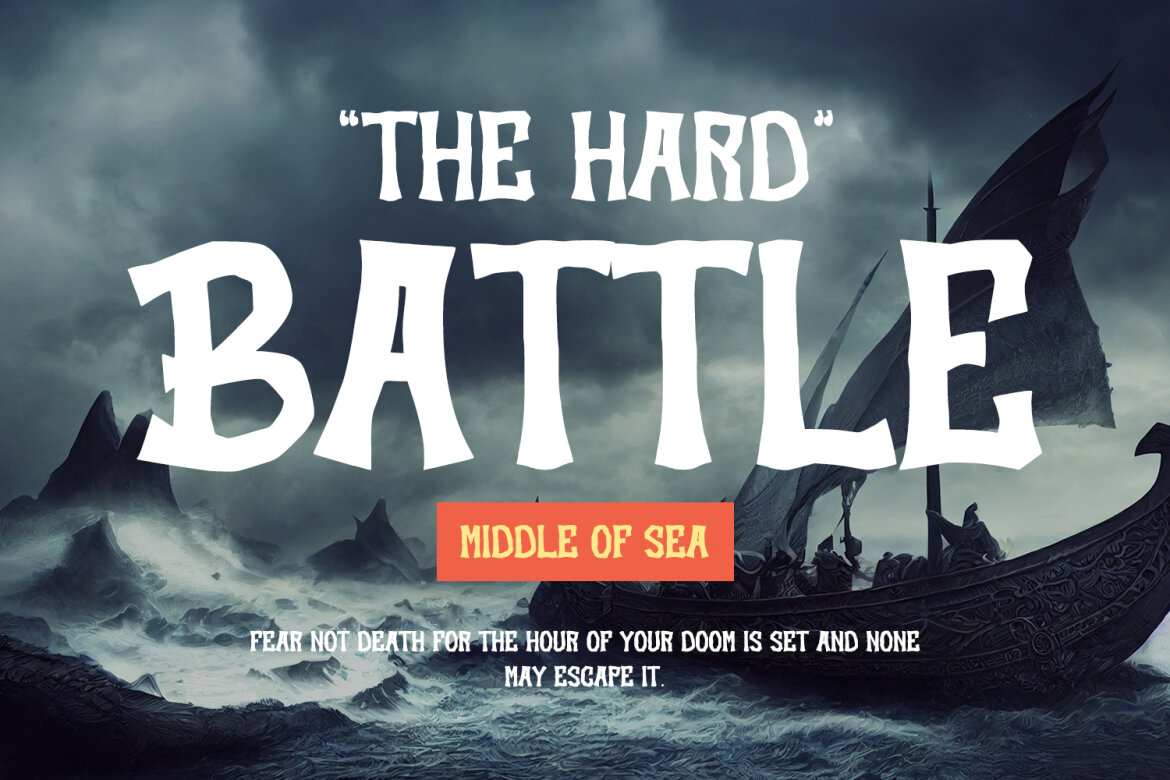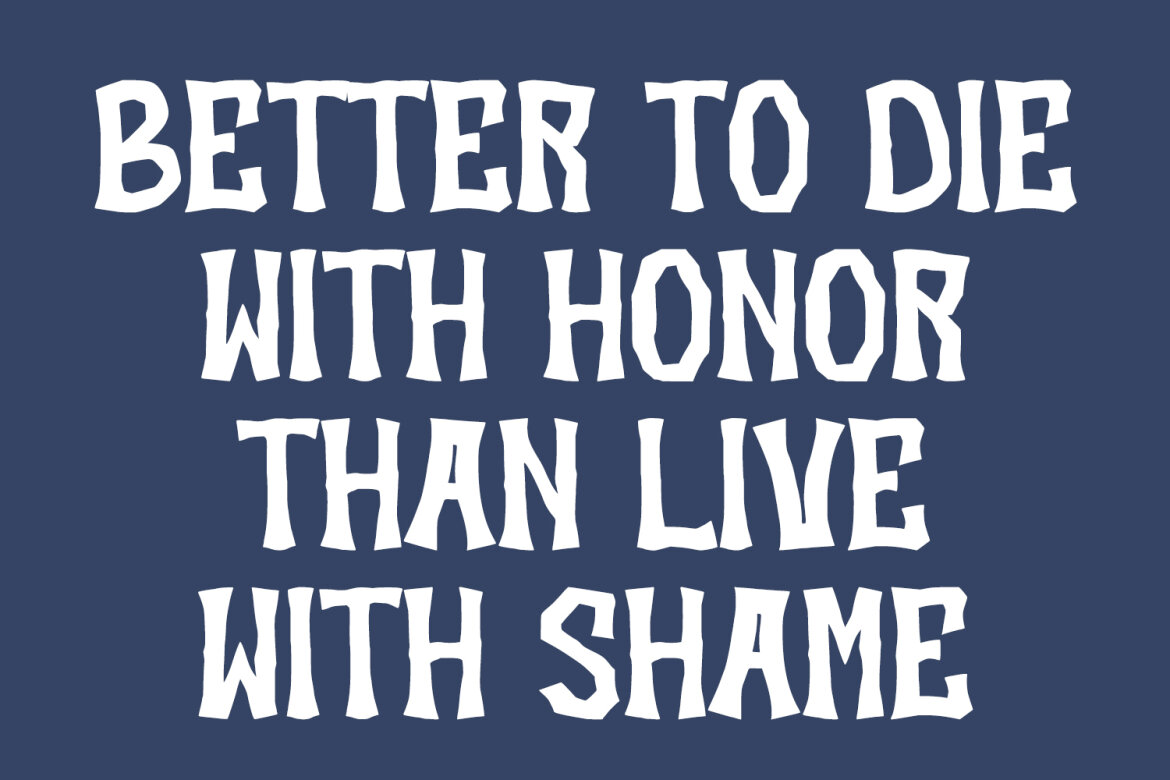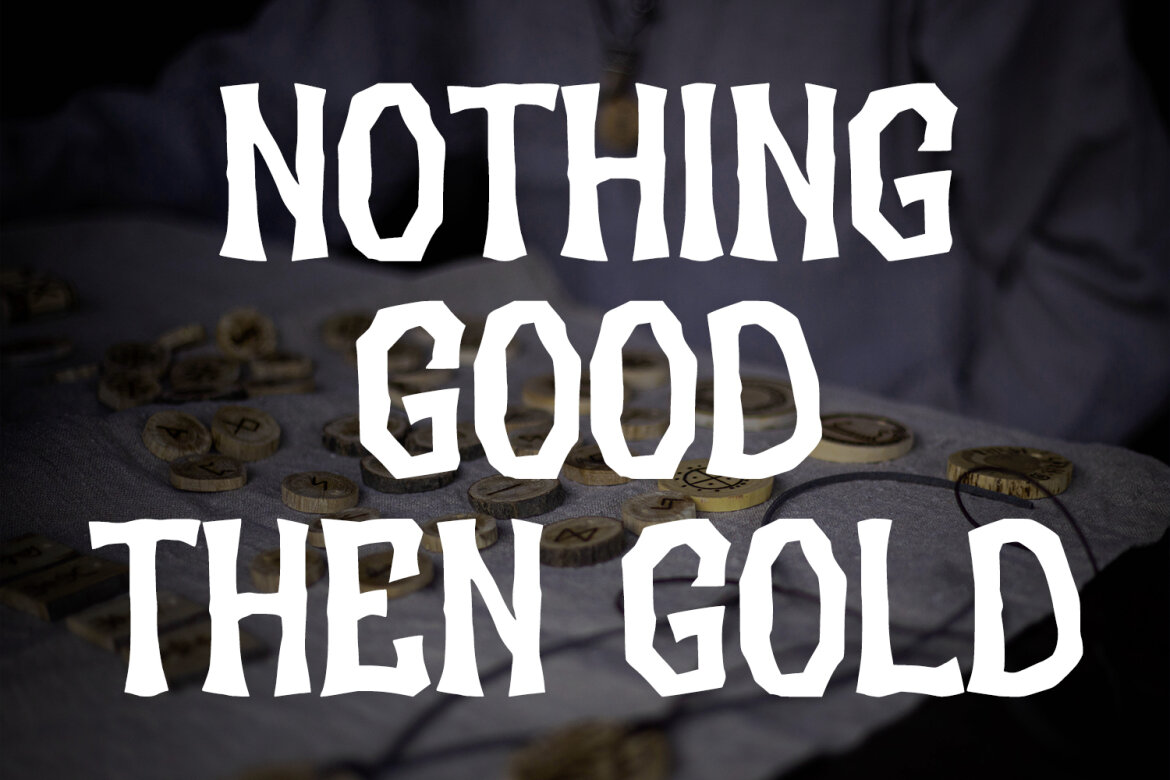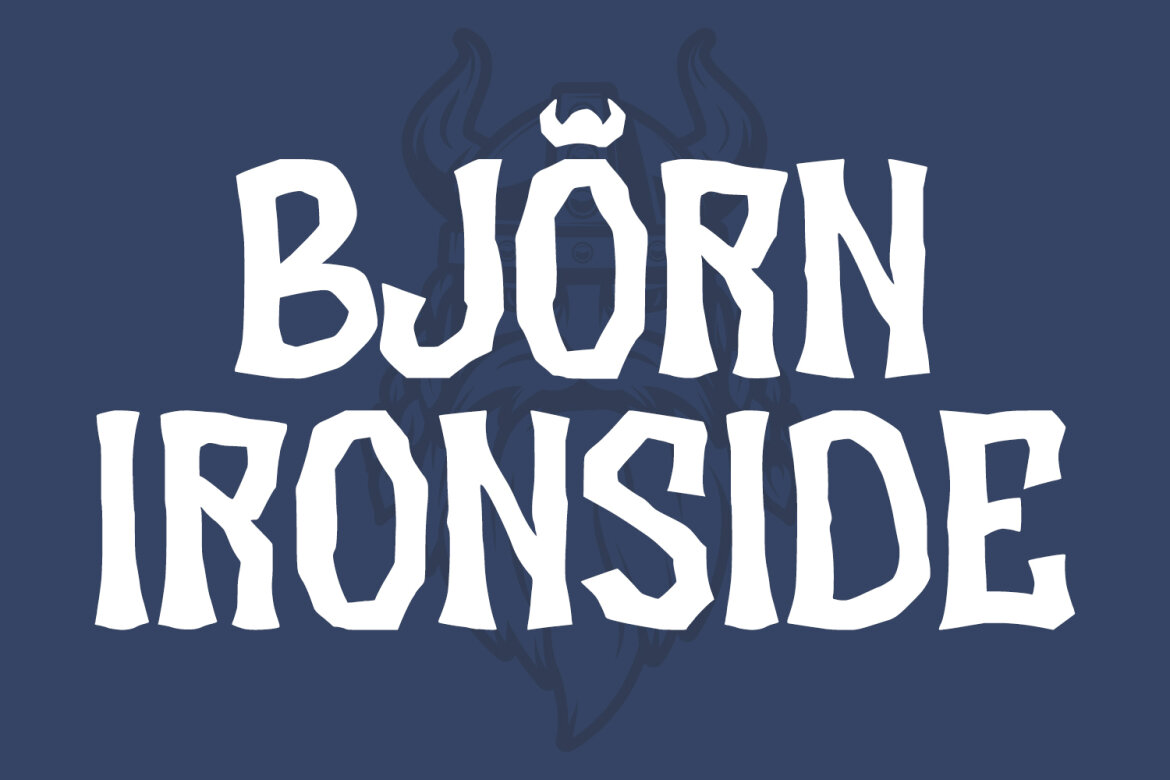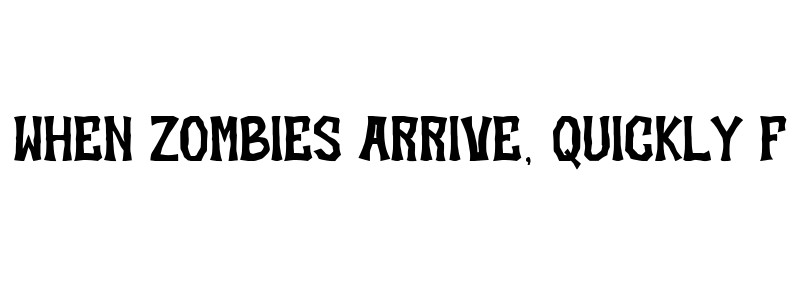
Viking Base Display FREE Font
Viking Base
Viking Base is a sans display font. Bold stroke, fun character with a bit of ligatures and alternates. To give you an extra creative work. Viking Base font support multilingual more than 100+ language. This font is good for logo design, Social media, Movie Titles, Books Titles, a short text even a long text letter and good for your secondary text font with script or serif. Make a stunning work with Viking Base font.